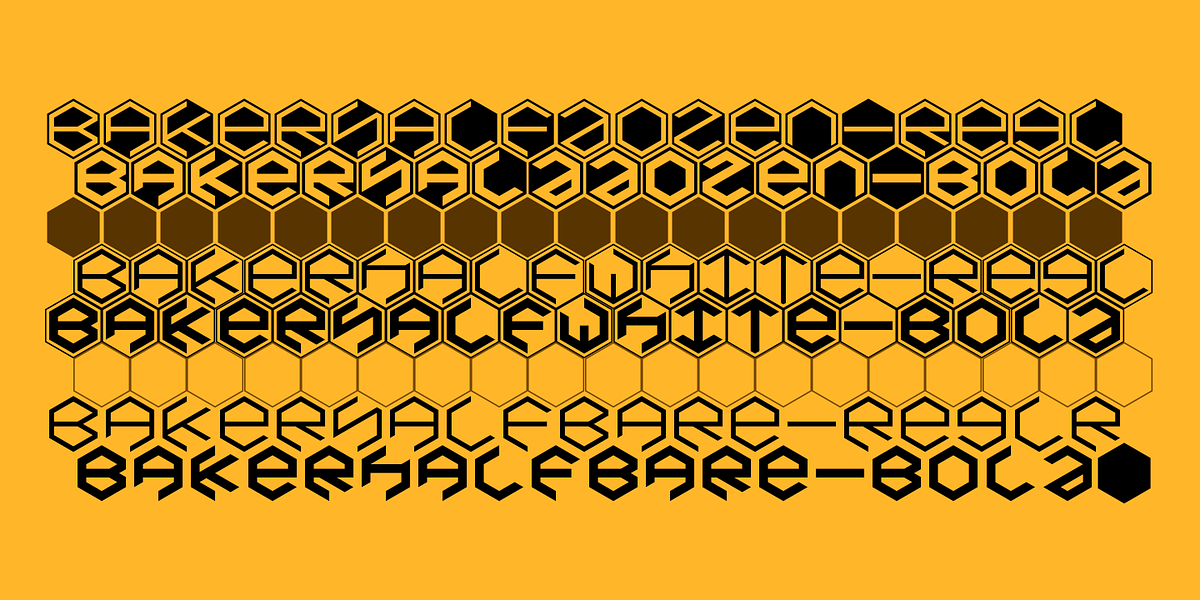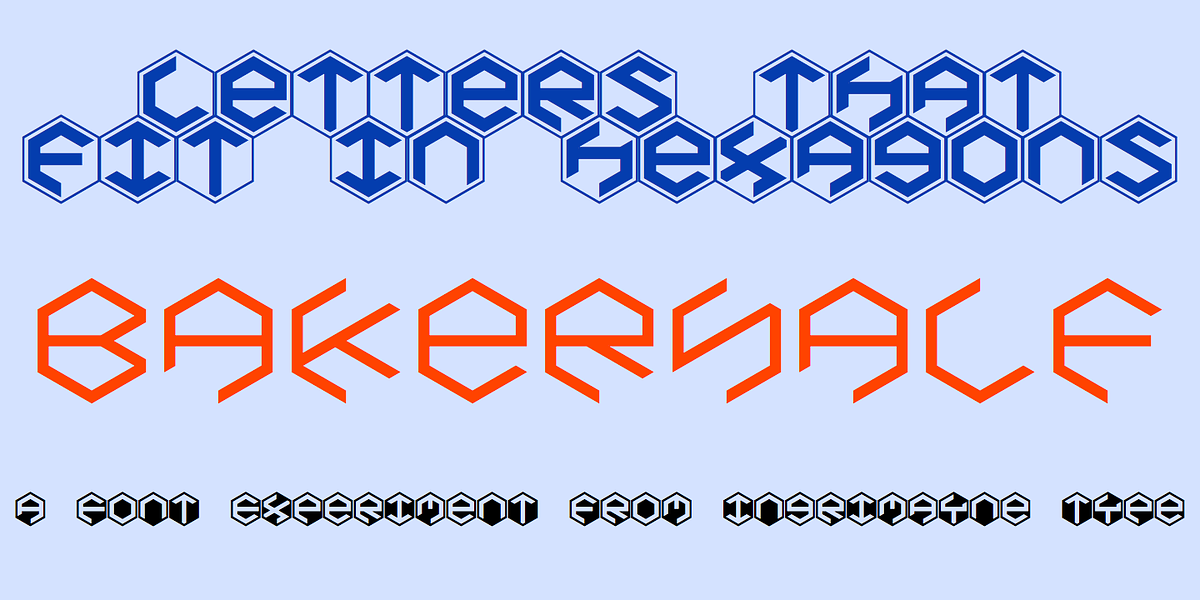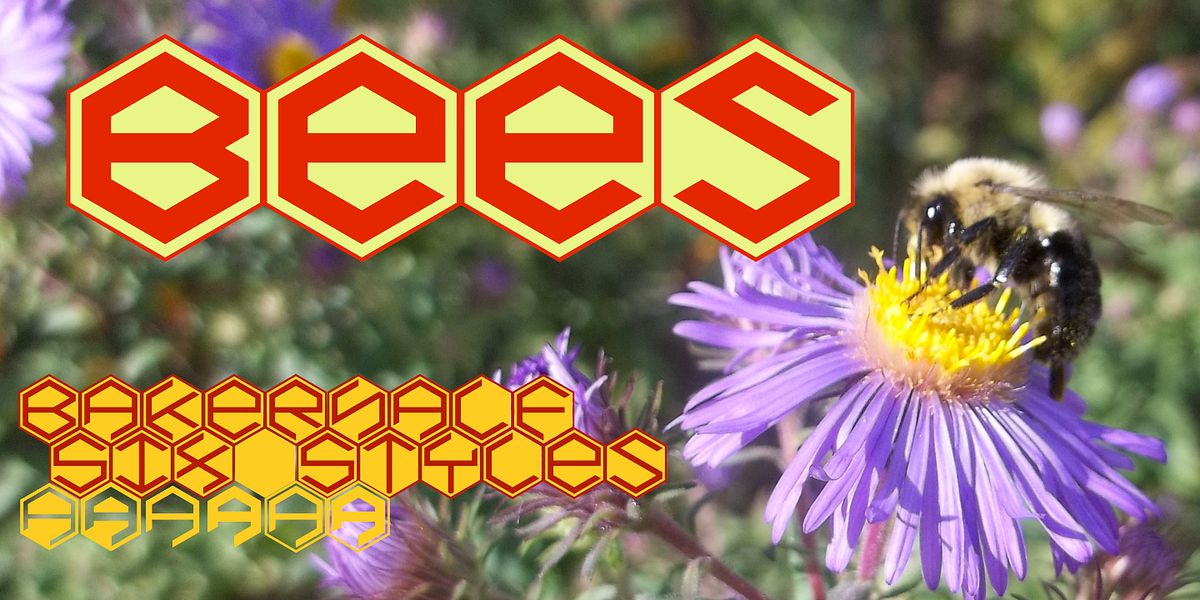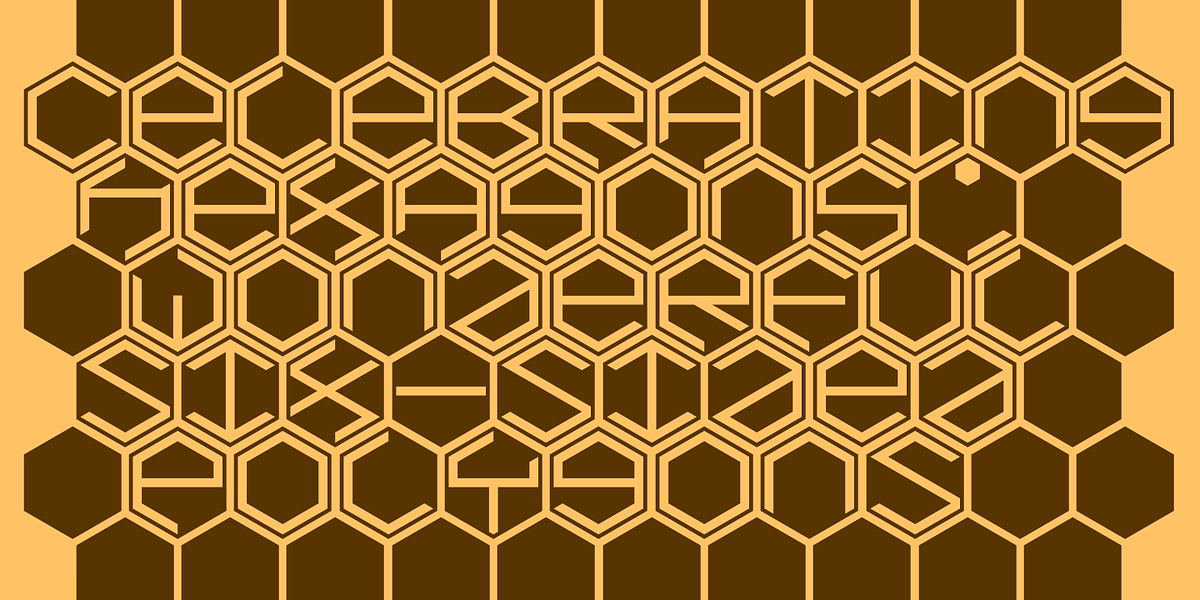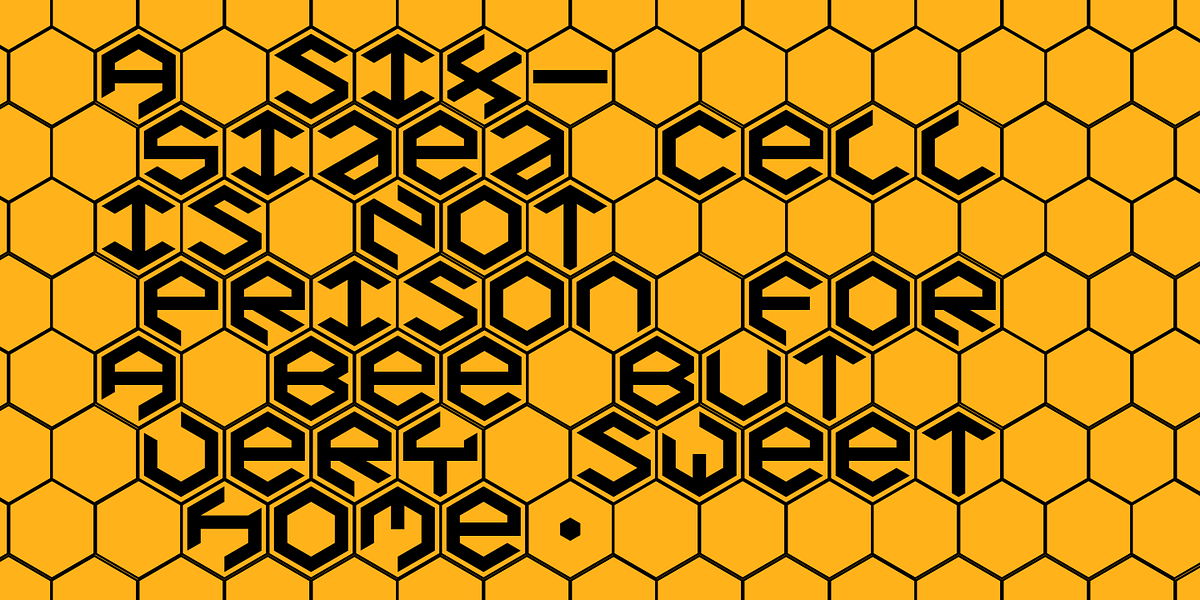
BakerHalf
BakerHalfDozen is a geometric display font presented in a unique hexagonal format. The letters are unicase (no true lowercase), and the design features angular shapes. It comes in black-on-white, white-on-black, and tileless variants.